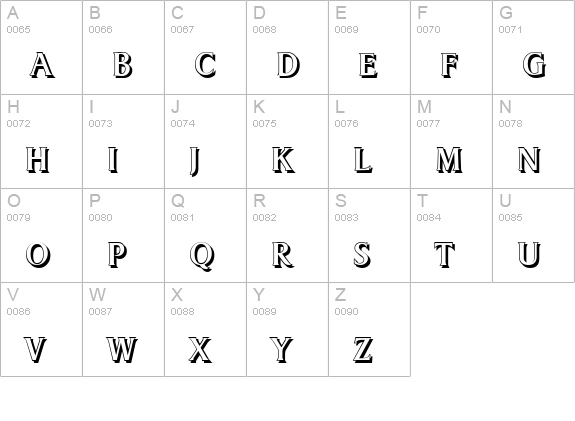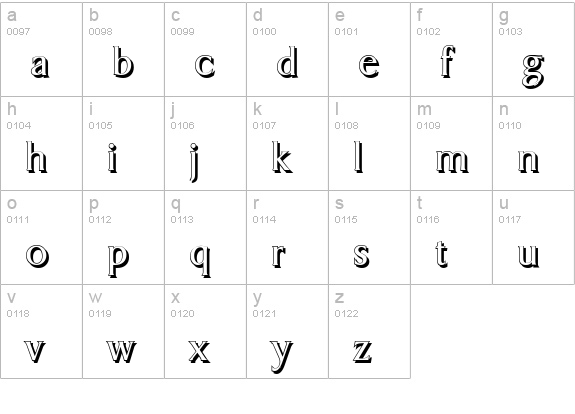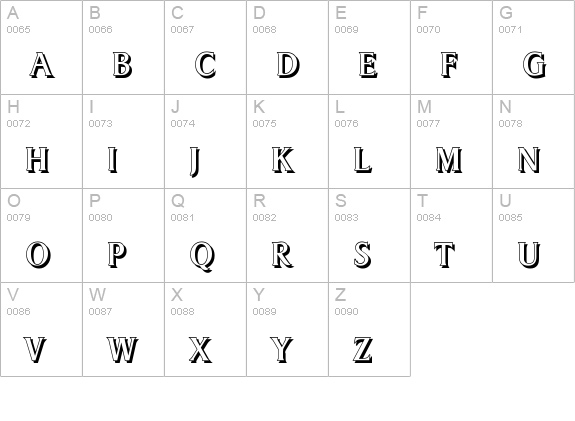
DragonShadow-Regular is the standard, neutral variant in the DragonShadow typeface family \xE2\x80\x94 well suited to general body text, paragraphs, and standard typographic work.
DragonShadow-Regular is a stunning display font that exudes power and mystery. With its sharp edges and bold presence, this font is perfect for projects that require a touch of fantasy and adventure. The intricate design of DragonShadow-Regular invokes images of mythical creatures and far-off lands, making it a truly captivating choice for any creative endeavor. What's even better is that DragonShadow-Regular is available for free download at FontsMarket.com. This means that you can easily add this unique font to your collection without any cost. Whether you're working on a poster, logo, or any other design project, DragonShadow-Regular is sure to make a bold statement and leave a lasting impression. Don't miss out on the opportunity to enhance your work with this striking and dynamic font - download DragonShadow-Regular today!